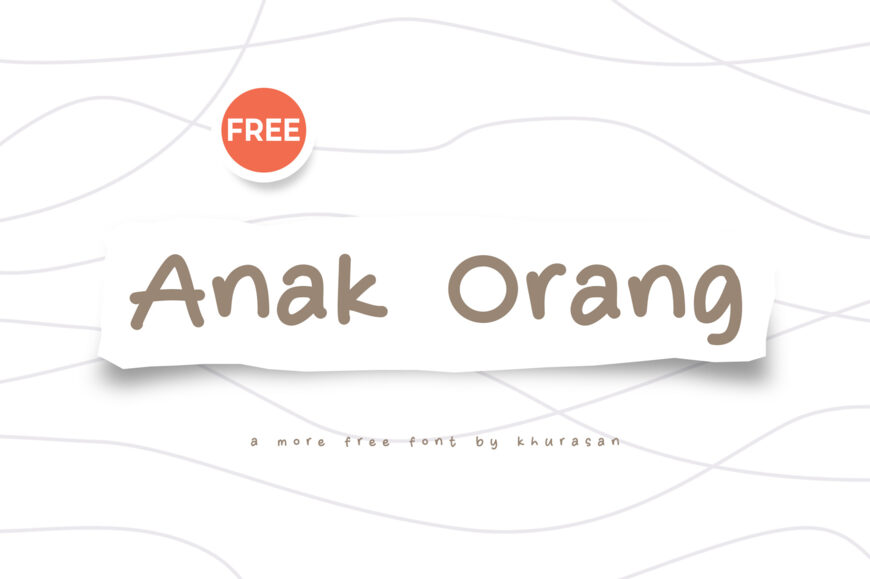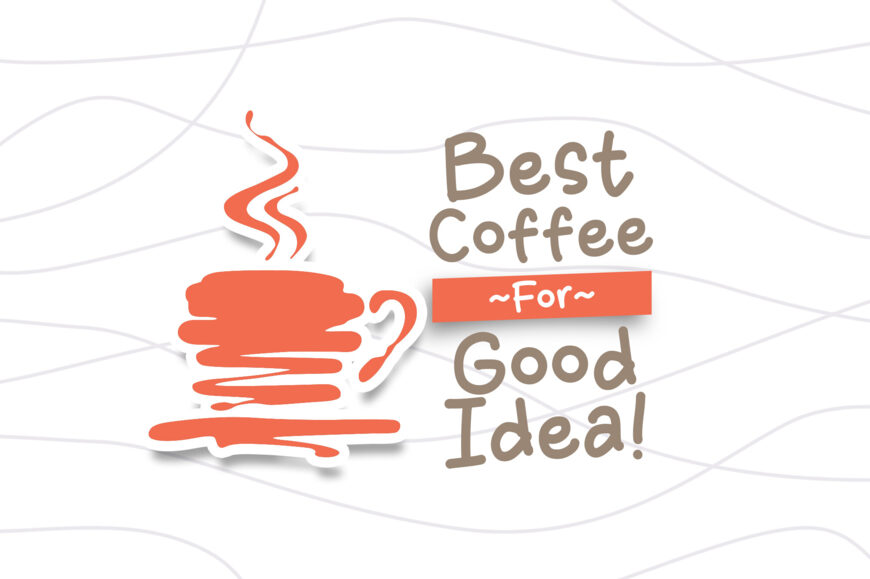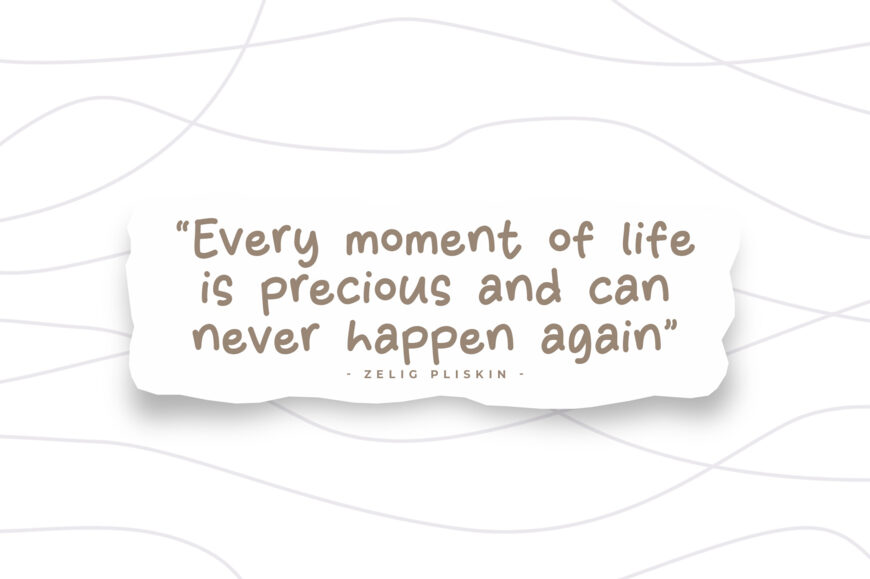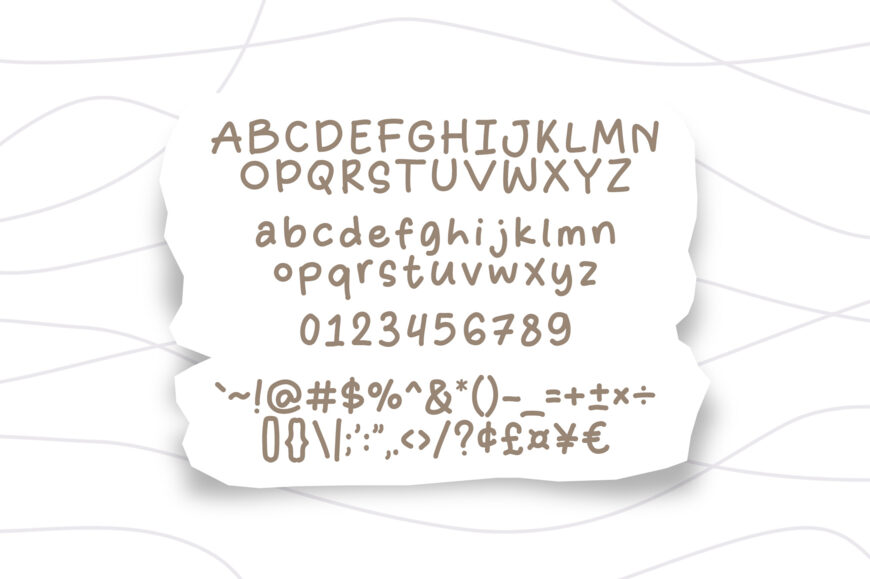
Anak Orang Font is a playful handwritten display typeface by Khurasan, featuring casual shapes, friendly curves, and an energetic handmade personality.
Its modern, informal style works especially well for children’s designs, school projects, birthday graphics, posters, storybooks, branding, packaging, social media, and cheerful headlines. The font offers 107 glyphs, delivering a fun and approachable look for creative projects that need warmth and personality.